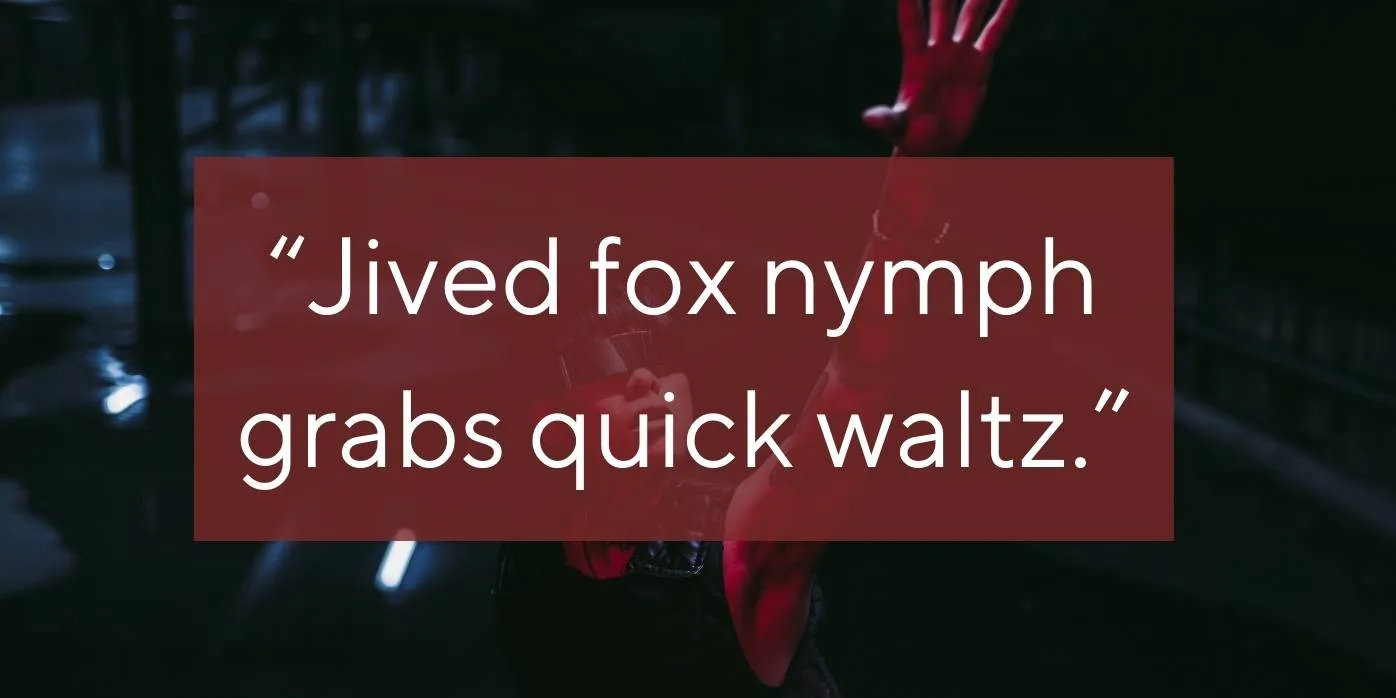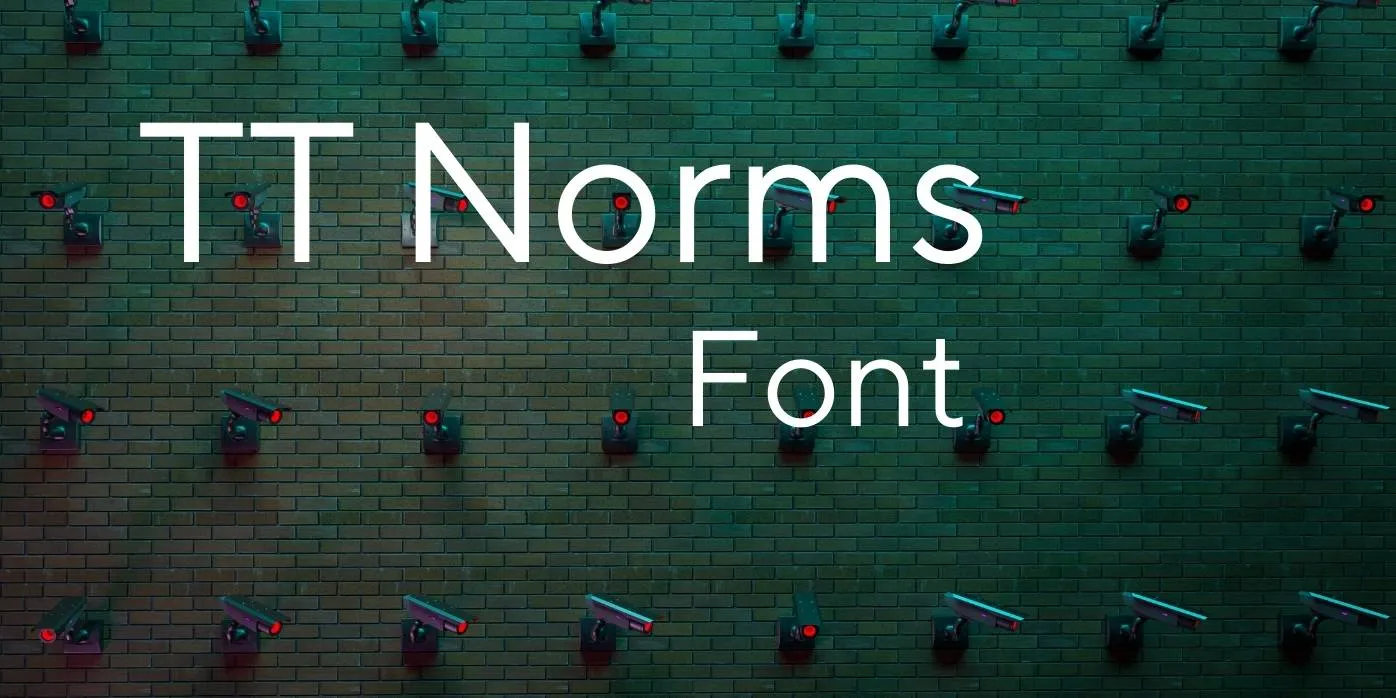
TT Norms Font
TT Norms font was designed and published by Ivan Gladkikh. This astonishing typeface belongs to the Sans-Serif typeface. It is a geometric sans-serif typeface with humanist forms. This cute Font has a very strong personality, it can be used in headlines and display typesetting.
This typeface is best for other programs like Adobe Photoshop, and Illustrator. This awesome font includes 6 weights: light, regular, medium, bold, extra bold, and black. Its character set supports most of the European languages. The light, regular, and medium weights are best suited for body text and long blocks of copy.
The black weight is best used for headlines and short blocks of text. The Light Font is alternative to this font family. This typeface is very famous because of its stylish look. It is perfect for branding, advertising, and other design projects.